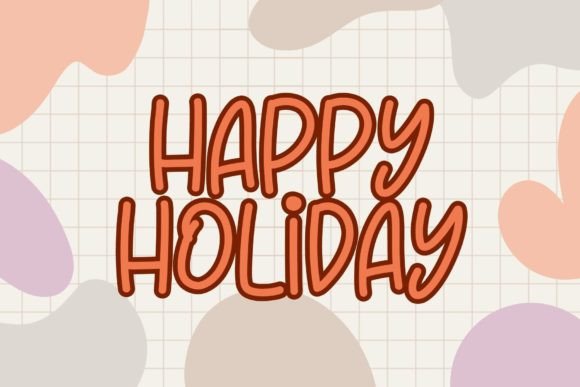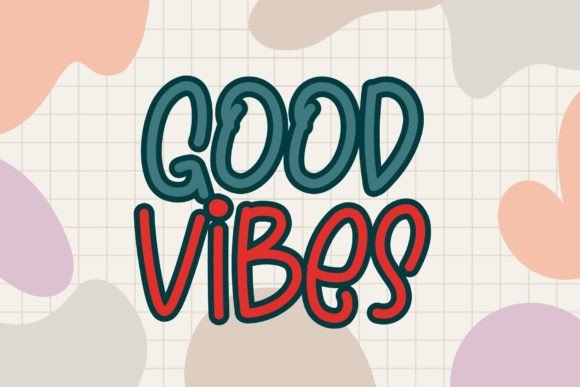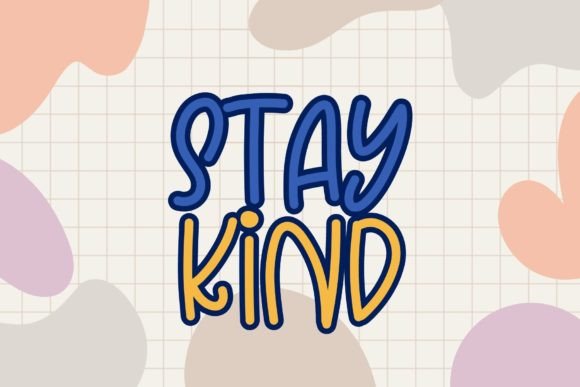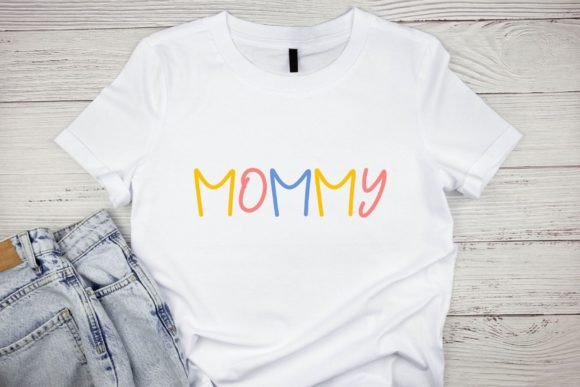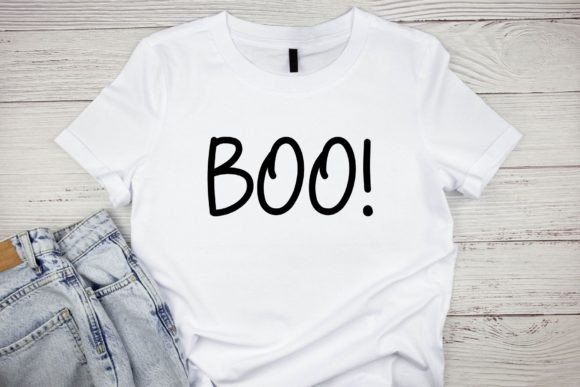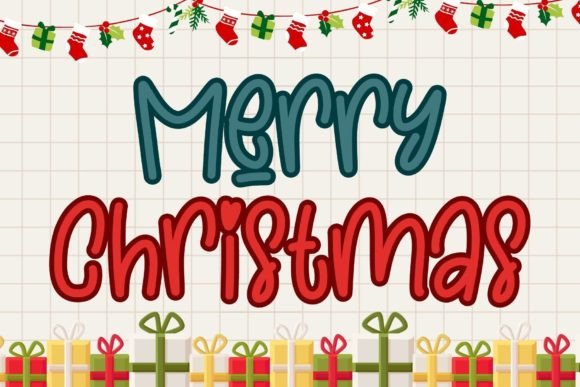
Audrey Font: The Ultimate Handwritten Font for Creative Projects
Are you looking for a font that embodies playfulness and authenticity? Look no further than Audrey Font! This adorable handwritten font is perfect for adding a personal touch to your designs, and its versatility makes it suitable for a wide range of projects. In this article, we’ll explore the features and benefits of Audrey Font, and show you how to make the most of this fantastic font.
What is Audrey Font?
Audrey Font is a beautiful, handwritten font that exudes warmth and friendliness. Its unique, cursive style makes it perfect for creating eye-catching designs that stand out from the crowd. Whether you’re a designer, crafter, or DIY enthusiast, Audrey Font is an excellent choice for adding a personal touch to your projects.
Features of Audrey Font
Audrey Font has several features that make it an excellent choice for creative projects. Some of its key features include:
- Playful and Authentic: Audrey Font has a playful, handwritten style that’s perfect for creating designs that are fun and authentic.
- Versatile: This font is suitable for a wide range of projects, including blog posts, logos, branding, ads, invitations, greeting cards, planners, photo albums, decorations, and more.
- Easy to Read: Audrey Font is clear and easy to read, making it perfect for body text and headings.
- Customizable: You can use Audrey Font in a variety of colors and styles to match your brand or design aesthetic.
Benefits of Using Audrey Font
Using Audrey Font in your designs can have several benefits, including:
- Adding a Personal Touch: Audrey Font’s handwritten style adds a personal touch to your designs, making them more relatable and engaging.
- Standing Out from the Crowd: This unique font helps your designs stand out from the crowd, making them more noticeable and memorable.
- Enhancing Brand Identity: Audrey Font can help you create a consistent brand identity that’s friendly, approachable, and authentic.
Project Ideas Using Audrey Font
Audrey Font is suitable for a wide range of projects, including:
- Blog Posts: Use Audrey Font to add a personal touch to your blog posts and make them more engaging.
- Logos and Branding: Create a unique logo and brand identity using Audrey Font.
- Ads and Marketing Materials: Use Audrey Font to create eye-catching ads and marketing materials that stand out from the crowd.
- Invitations and Greeting Cards: Create beautiful invitations and greeting cards using Audrey Font.
- Planners and Photo Albums: Add a personal touch to your planners and photo albums using Audrey Font.
- Decorations: Use Audrey Font to create beautiful decorations, such as wall art and signs.
Tips for Using Audrey Font
Here are some tips for using Audrey Font effectively:
- Use it Sparingly: Use Audrey Font sparingly to avoid overwhelming your designs.
- Mix and Match: Mix and match Audrey Font with other fonts to create visual interest.
- Experiment with Colors: Experiment with different colors to find the perfect match for your brand or design aesthetic.
Audrey Font is a beautiful, handwritten font that’s perfect for adding a personal touch to your designs. Its playfulness, authenticity, and versatility make it suitable for a wide range of projects. With its ease of use and customization options, Audrey Font is an excellent choice for designers, crafters, and DIY enthusiasts. So why wait? Add Audrey Font to your designs today and enjoy the results!